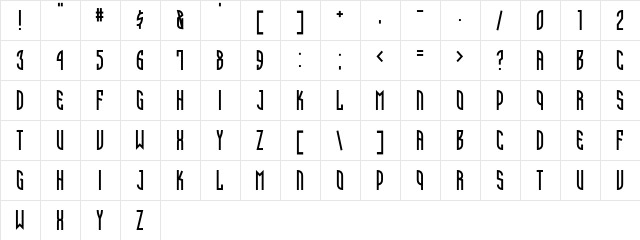
Isepik Regular
Design Context for Isepik Typeface
Isepik is a composed and adaptable typeface that performs quietly and consistently across a wide range of design contexts.